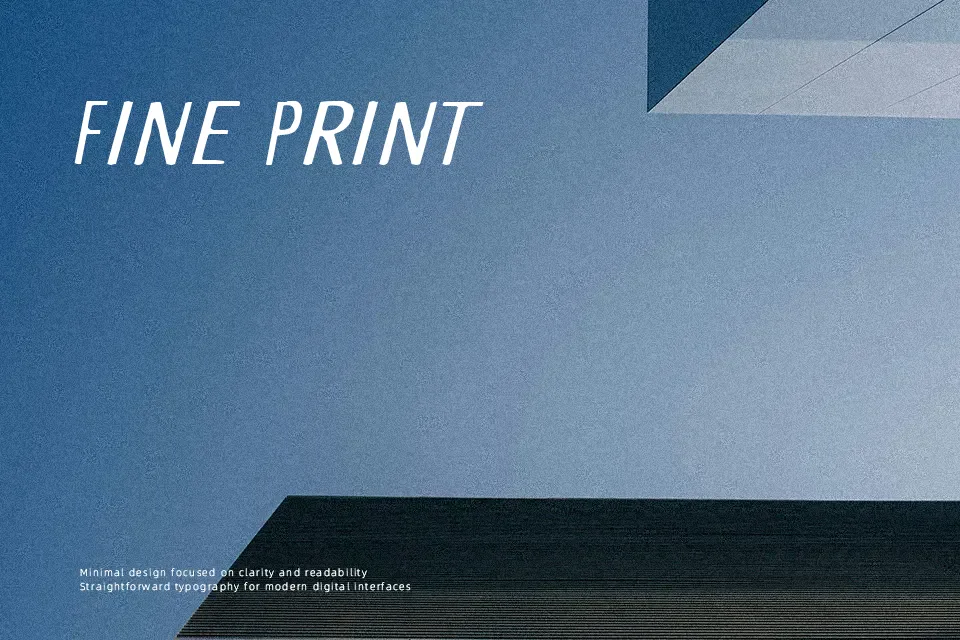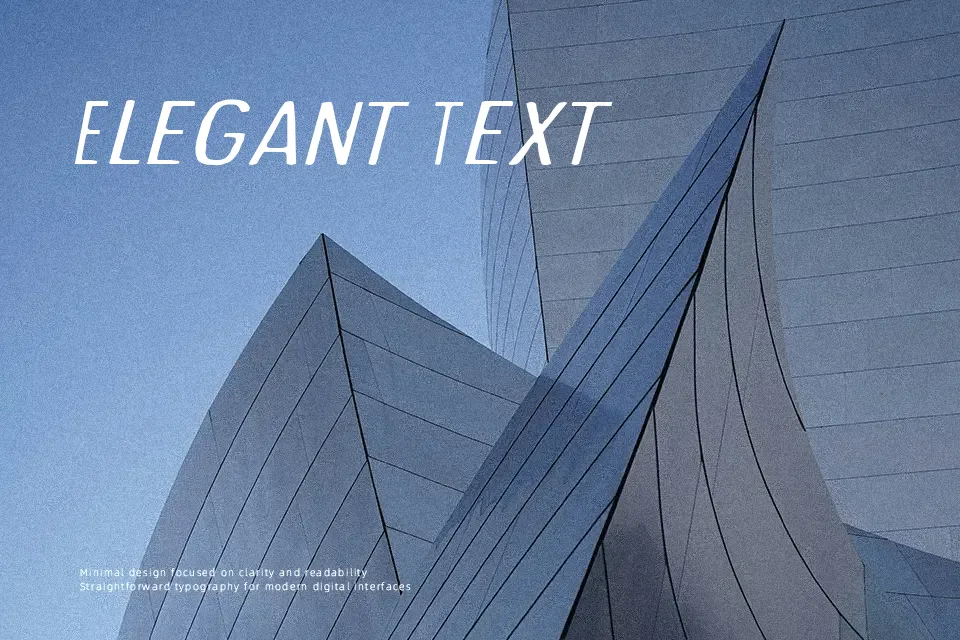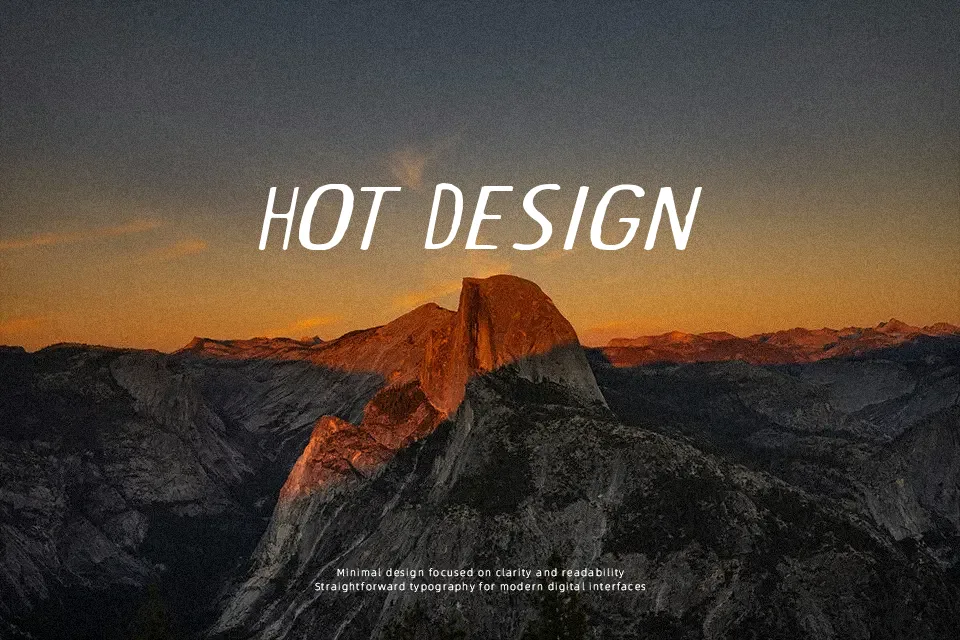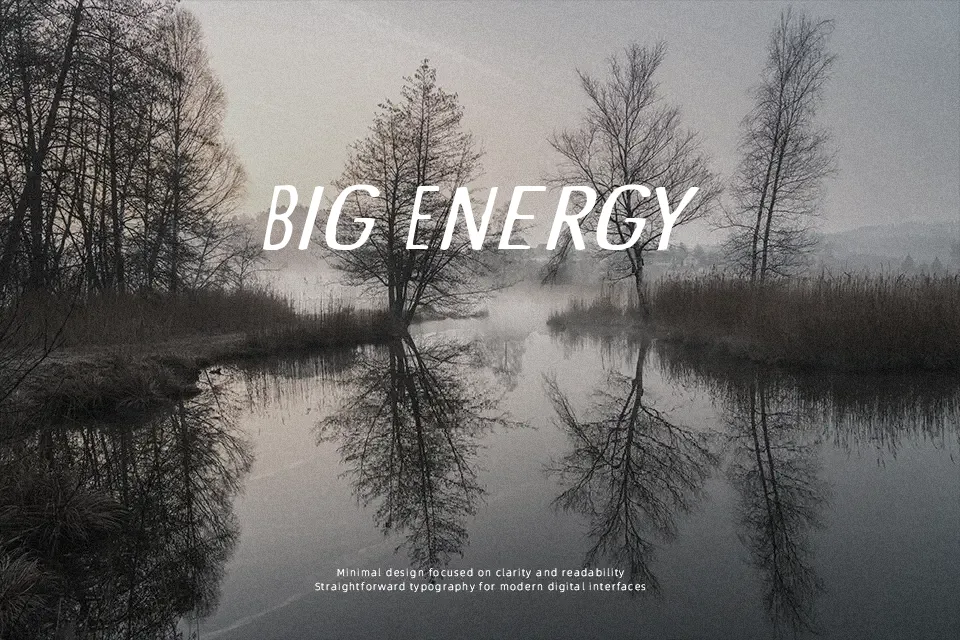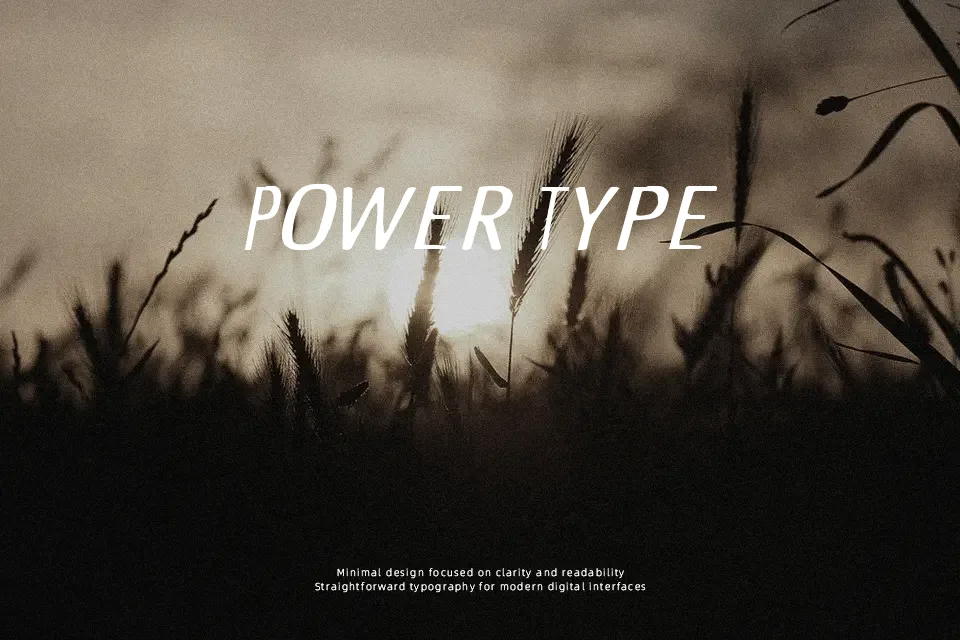
CF Old Photograph Credit Font
CF Old Photograph Credit Font presents a narrow condensed profile with tight letter spacing and sharp, angular strokes reminiscent of traditional archival labeling. The typeface relies on uniform line weight and elongated vertical stems, creating a compact rhythm that commands attention across vintage book jackets, retro film titles, and packaging accents. Letterforms remain legible and crisp when presented in short display phrases at medium to large scale. However, the compressed proportions and narrow inner counters make the design unsuitable for extended body paragraphs or small mobile captions. For stylized headers requiring an authentic vintage aesthetic, the letterforms offer consistent visual discipline.
Best For: vintage film titles, retro poster credits, archival book jackets, nostalgic product packaging
Not Ideal For: continuous body text, mobile app interfaces, dense tabular data, fine print captions
Perfect for branding, film, and headline, with a classic and condensed style.